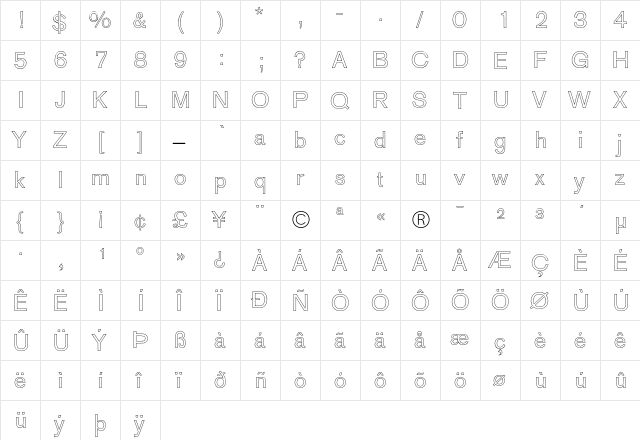
AG Old Face Outline
Design Context for AG Old Face Typeface
AG Old Face brings ornamental detail and strong personality to headlines and identities, where visual impact matters more than quiet functionality.
Font Pairing: Pair with a clean neutral sans-serif for body copy to let AG Old Face's character lead without overwhelming the composition.
Pro Tip: Treat AG Old Face as the centrepiece of your typographic hierarchy. One strong heading set in a decorative face can carry an entire layout.